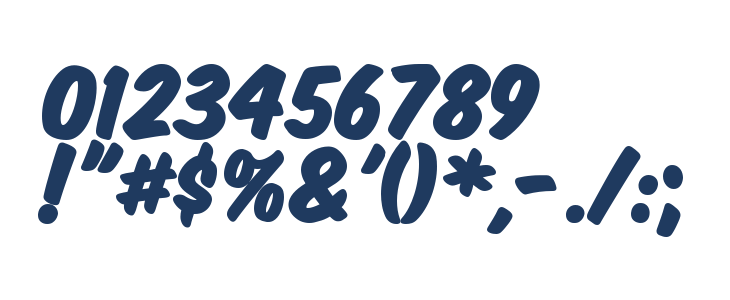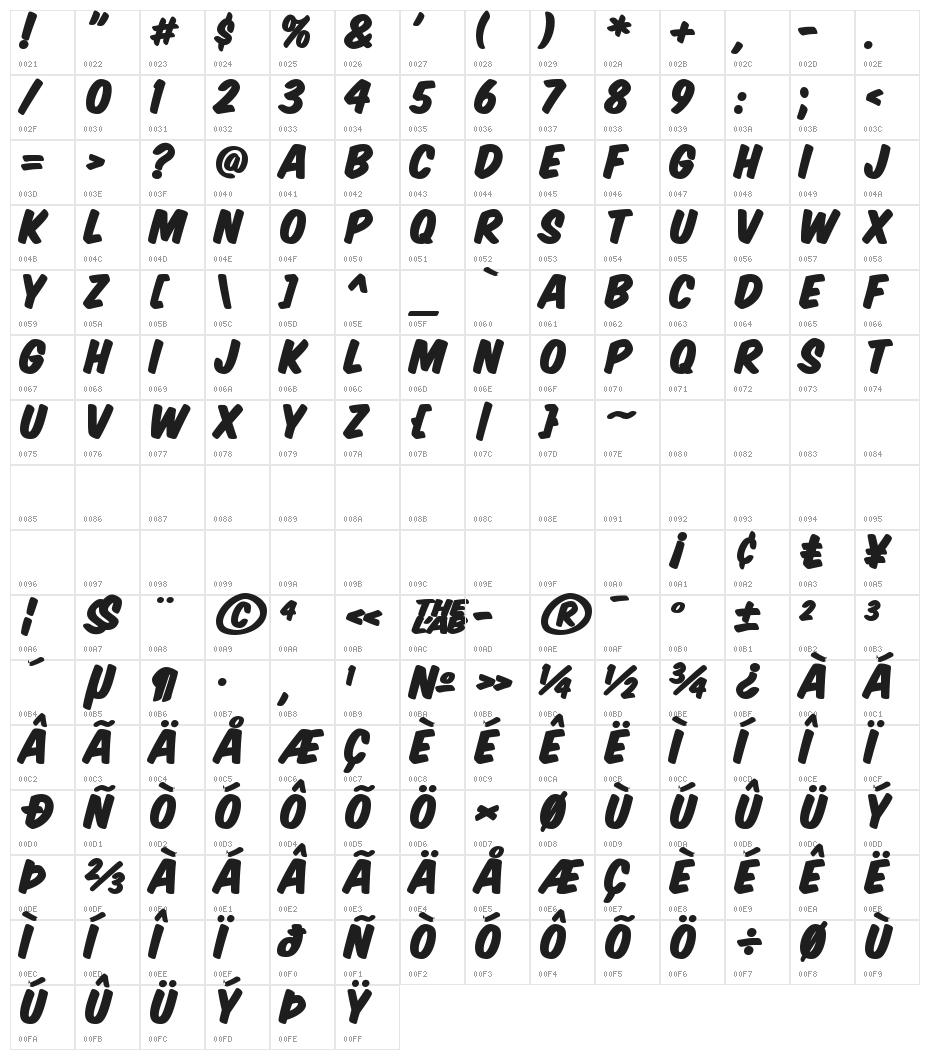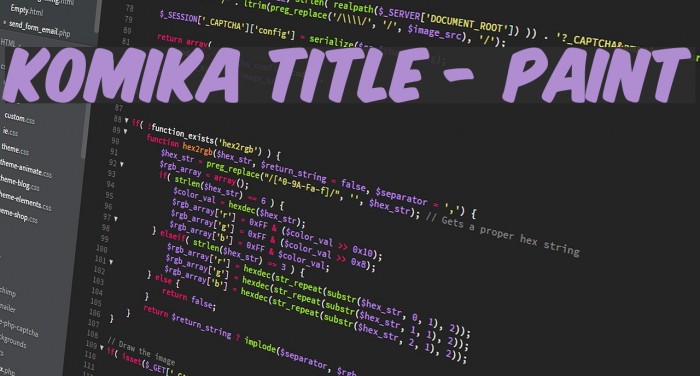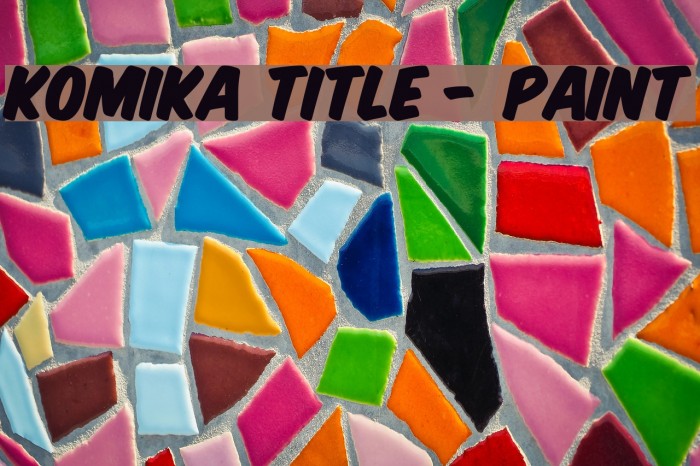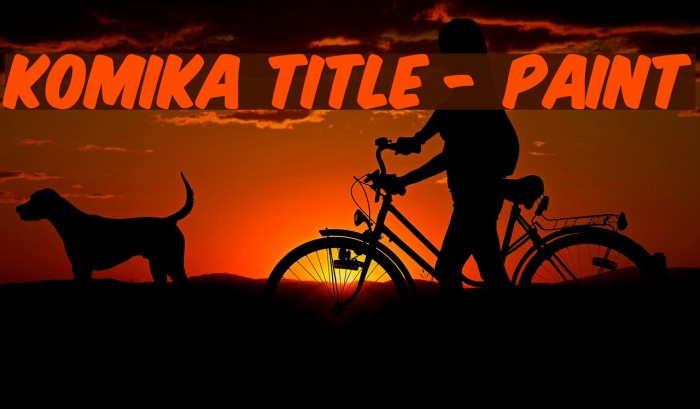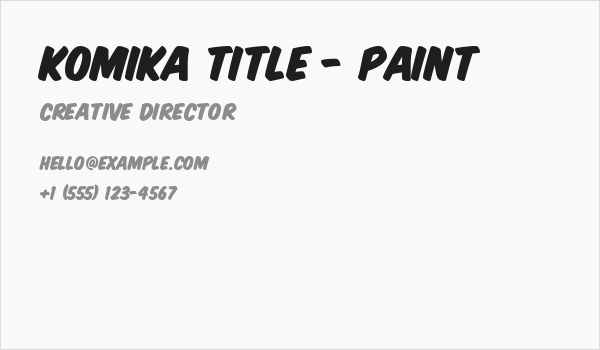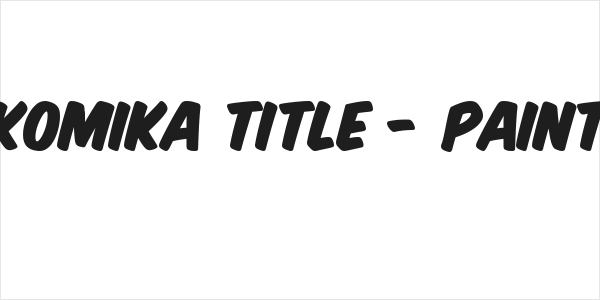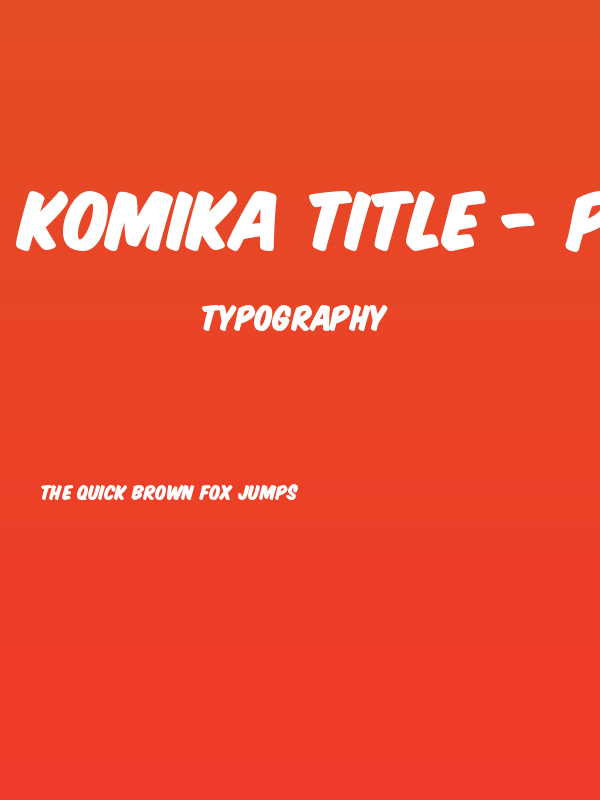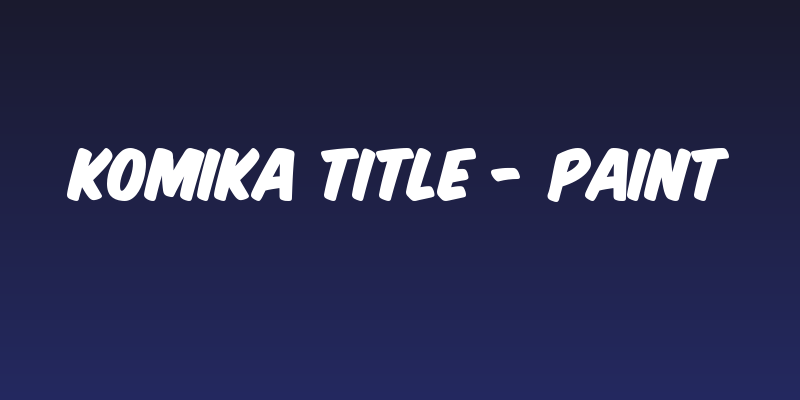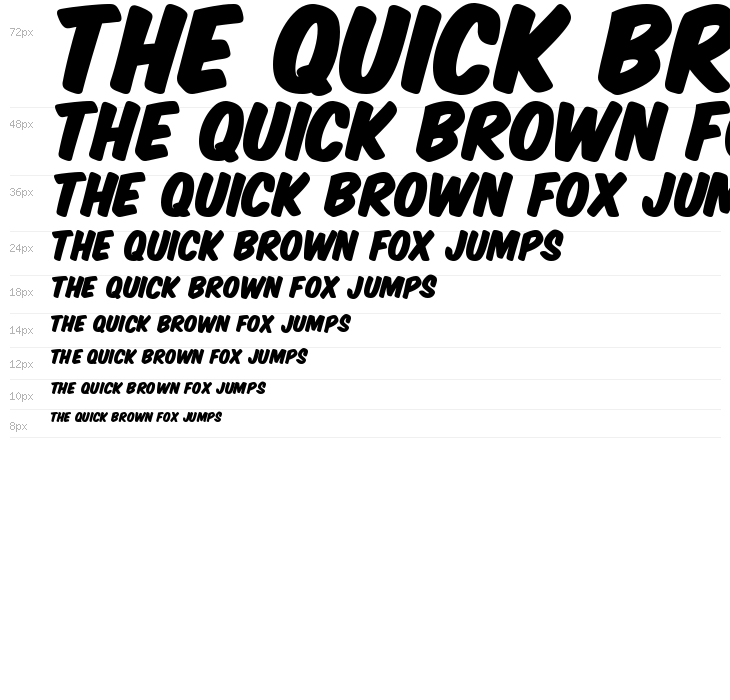
Komika Title - Paint Font
Komika Title - Paint Description
This font features bold, rounded characters with a playful and energetic style. The letters are thick and slightly slanted, giving a dynamic and lively appearance. The strokes are consistent in width, creating a uniform look across all characters. The font includes both uppercase and lowercase letters, numbers, and a variety of special characters. Its boldness and rounded edges make it highly legible and suitable for attention-grabbing designs. The overall style is reminiscent of comic book lettering, adding a fun and informal touch to any project.
| Overall Style | Playful, Comic |
| Proposed Projects | Ideal for comic books, children's books, posters, and playful branding. |